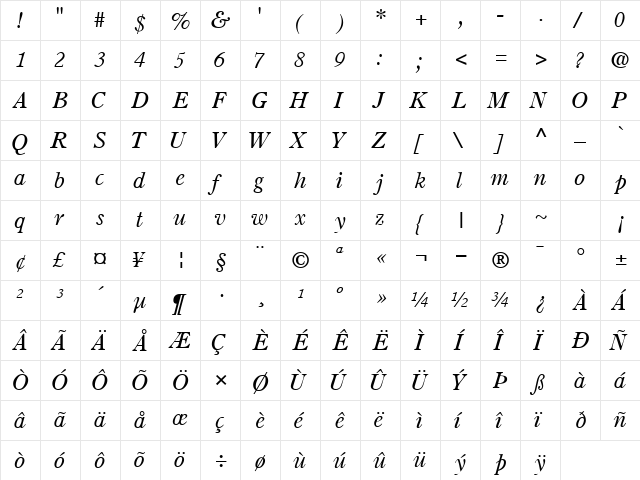
PartitionSSK Italic
Design Context for PartitionSSK Typeface
PartitionSSK takes a measured approach to typography — its balanced proportions and neutral character make it a reliable workhorse for both digital and print work. Its italic angle brings a sense of urgency and motion to the letterforms.
Pro Tip: Try PartitionSSK for annotation and caption copy alongside an upright companion — the contrast in angle creates a dynamic but ordered typographic system.